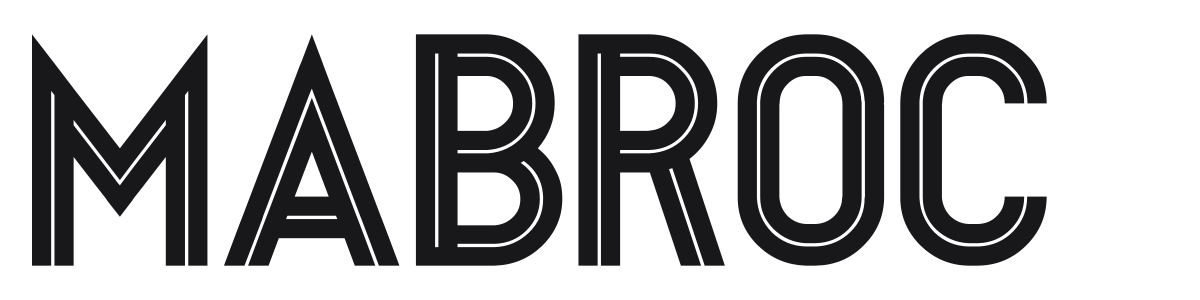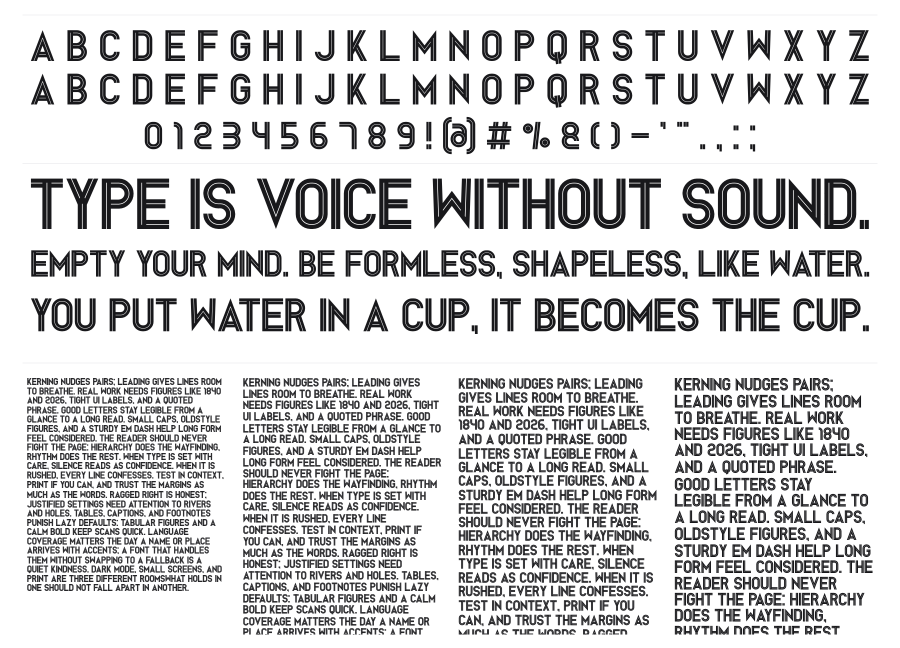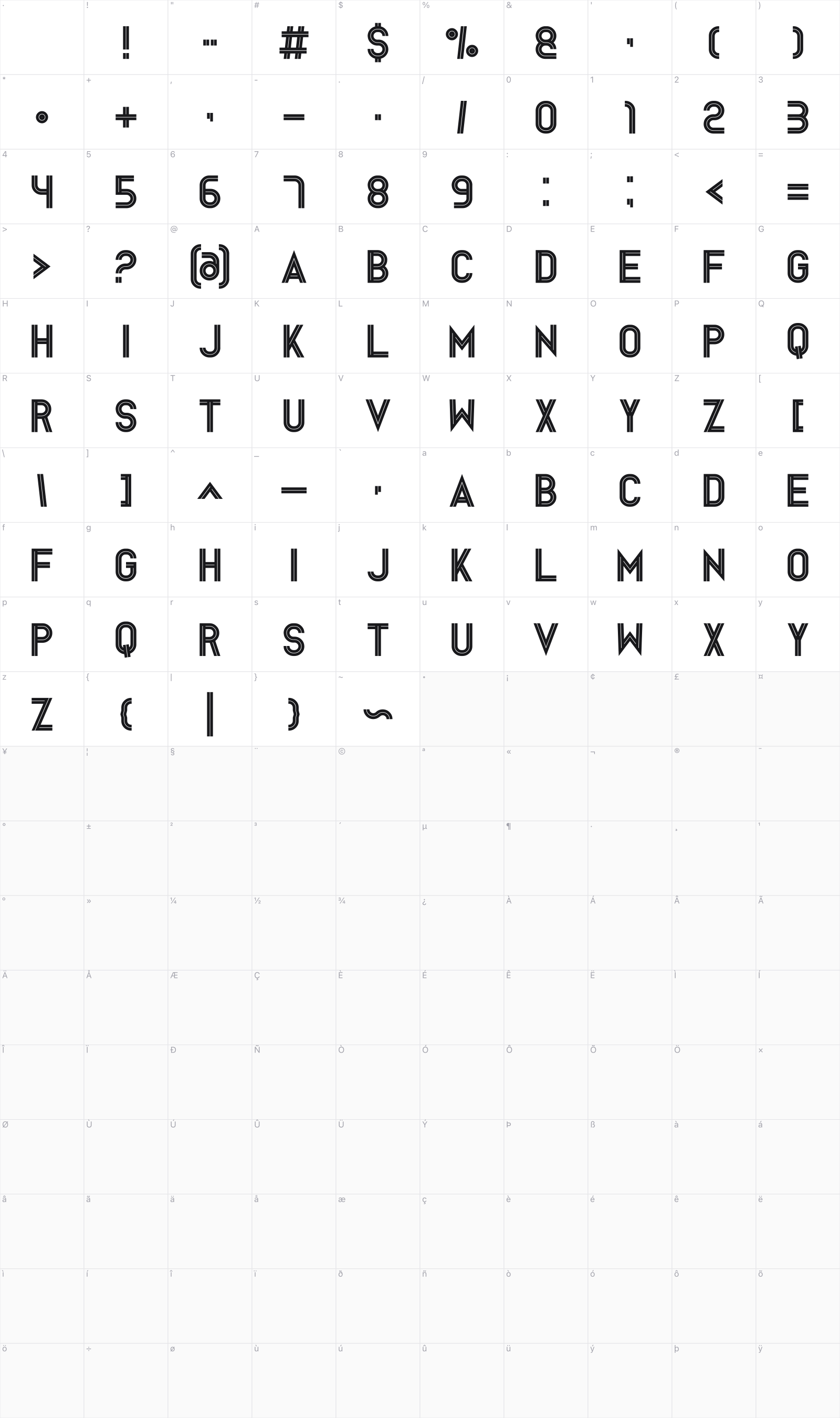
Mabroc
Mabroc is a condensed geometric sans-serif built around a bold inline construction, where a thin white channel traces through every major stroke. The result sits somewhere between art deco signage and mid-century display lettering, with strong vertical proportions and a graphic, almost architectural presence. It reads instantly at large sizes and carries a confident retro energy that works well in titles, packaging, and brand marks.